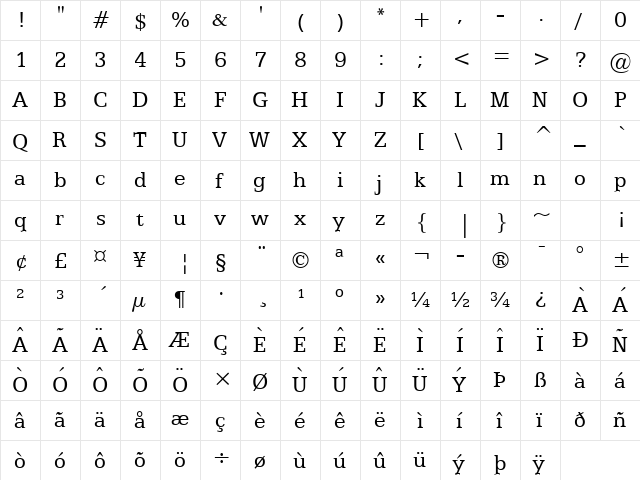
Eggo Normal
Design Context for Eggo Typeface
Eggo offers clean, dependable letterforms without strong stylistic allegiance, making it a practical choice for designers who need flexibility.
Pro Tip: Pair Eggo with a font of contrasting weight or personality to build a more expressive typographic hierarchy.